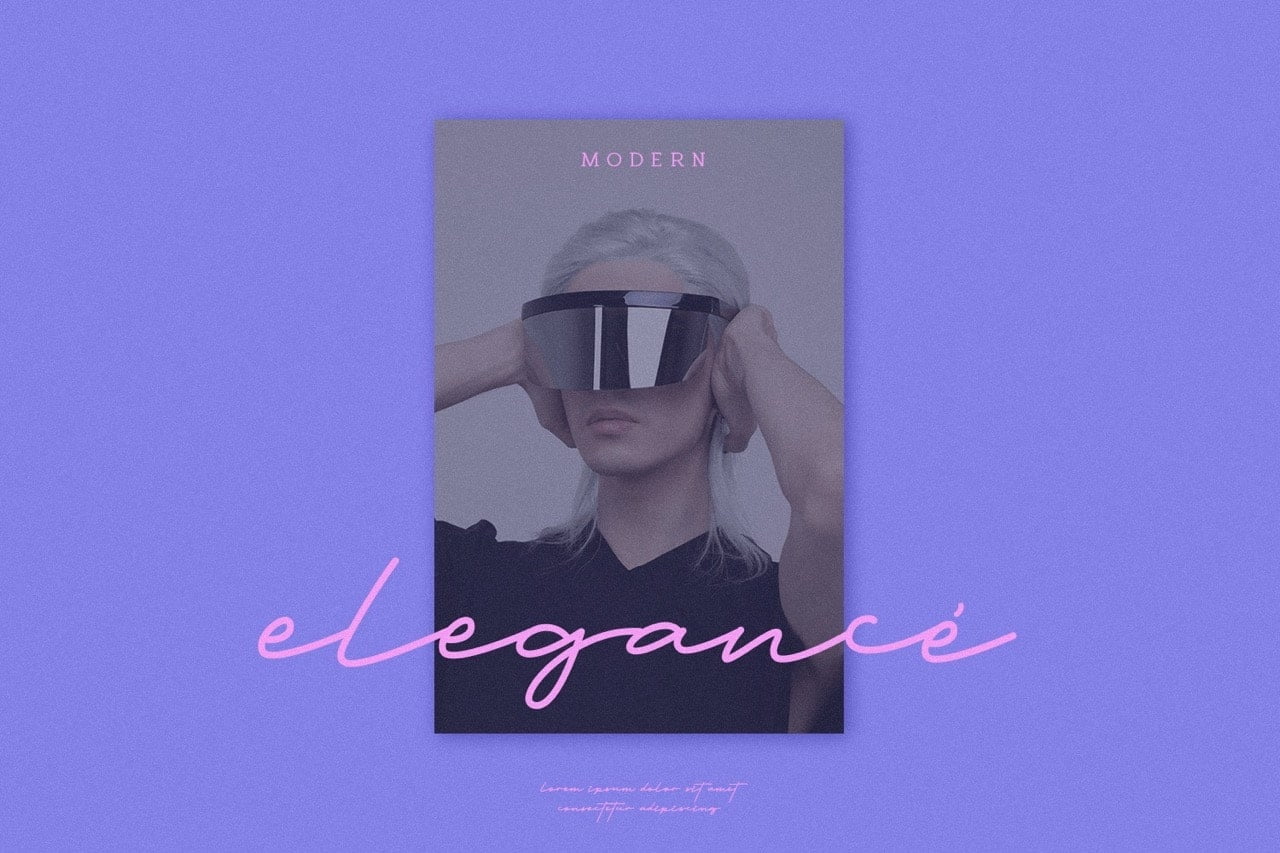
Give your projects a handwritten touch with Mondee script. Perfect for branding, logo designs and wedding invitations, you can use this font for anything that needs a personal touch.
- Stylistic Ligatures and Alternate Glyphs
Mondee Handwriting